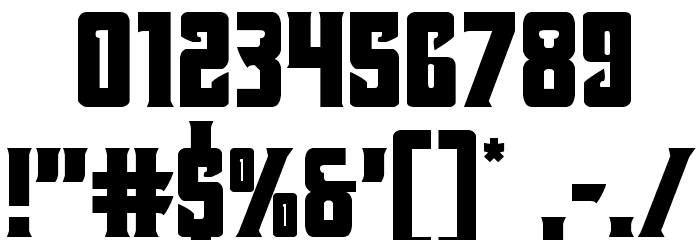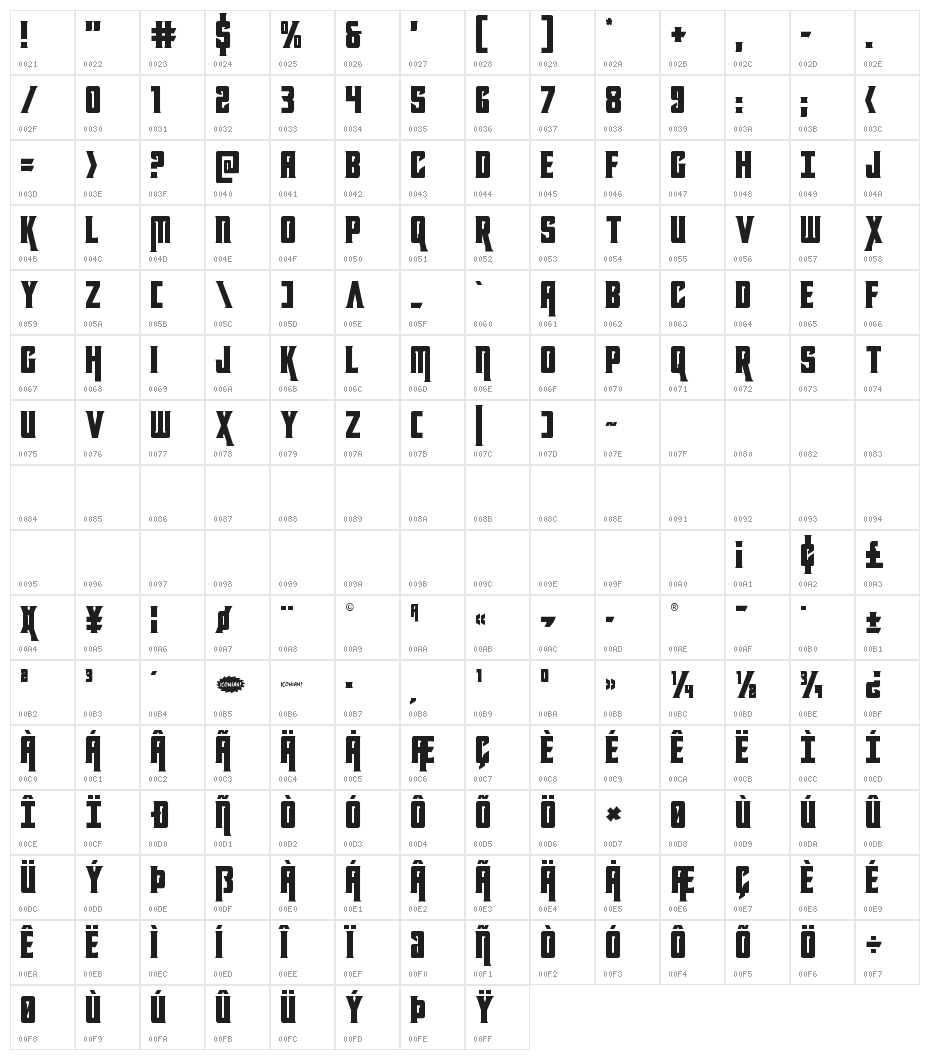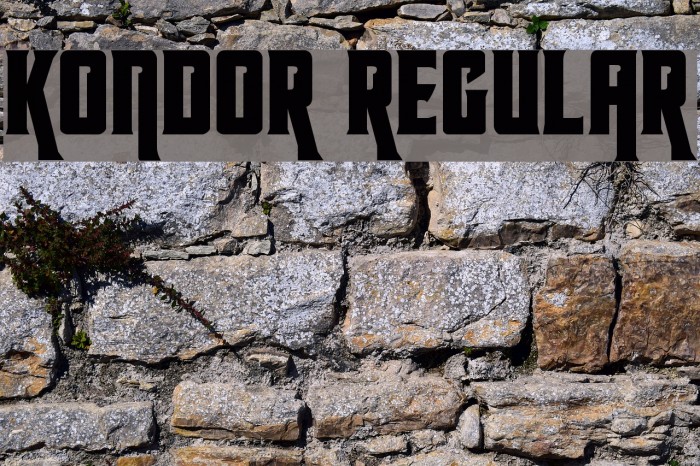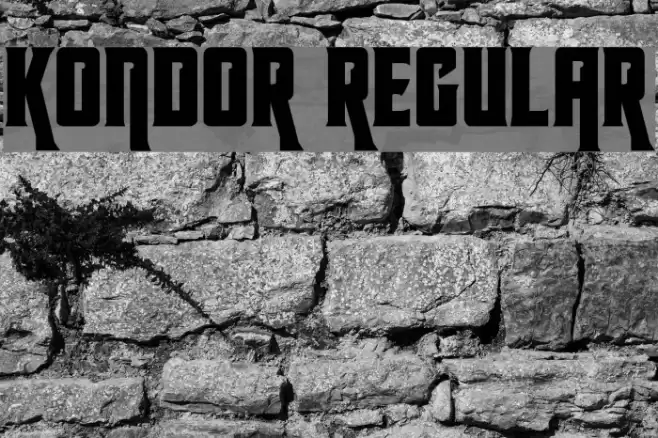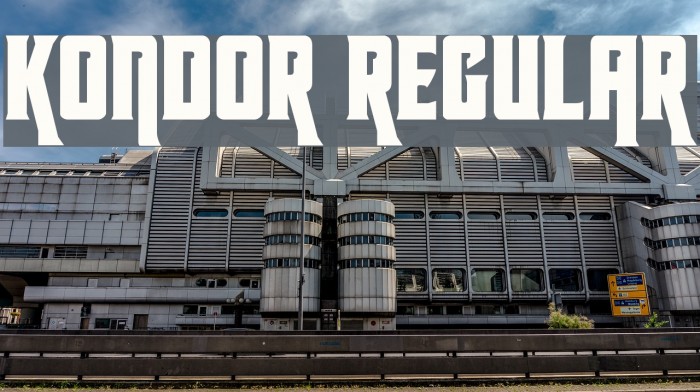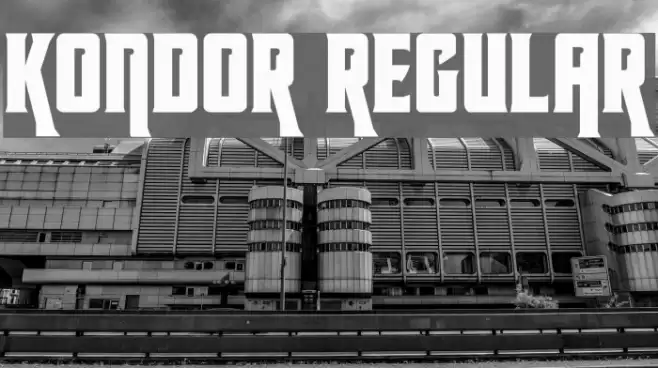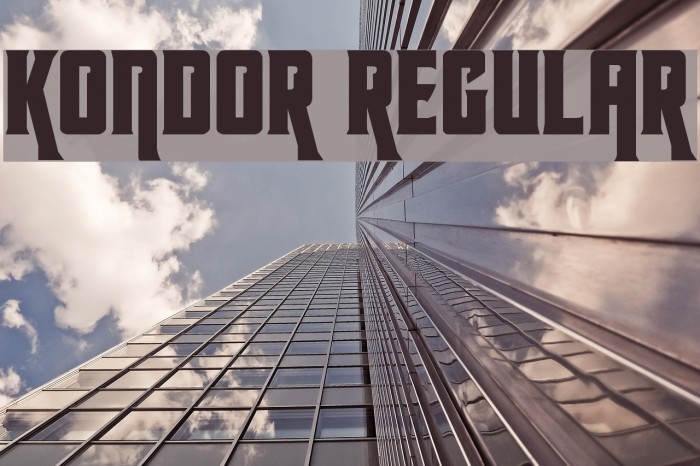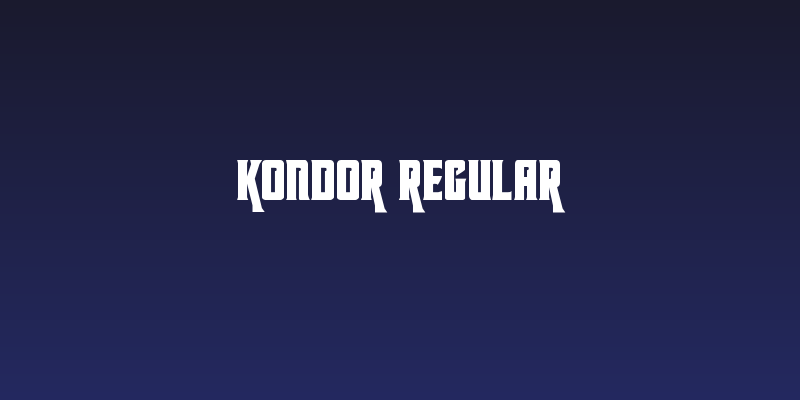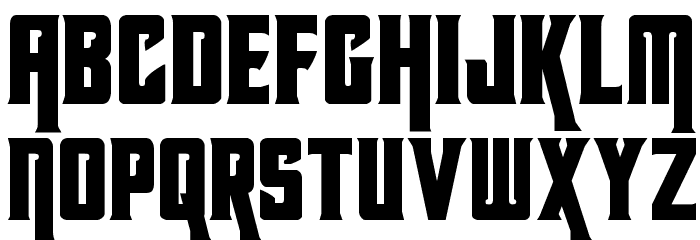
Kondor Regular Font
Kondor Regular Description
This font features a bold and striking design with sharp, angular edges and a strong geometric influence. The uppercase letters are particularly prominent, with a blocky and robust appearance that commands attention. The lowercase letters maintain the same boldness, ensuring consistency across the typeface. Numbers and special characters are equally bold, making them stand out effectively. The overall design is reminiscent of industrial or futuristic styles, suitable for projects that require a strong visual impact.
| Overall Style | Modern, Industrial |
| Proposed Projects | Ideal for branding, posters, headlines, and any design requiring a bold statement. |